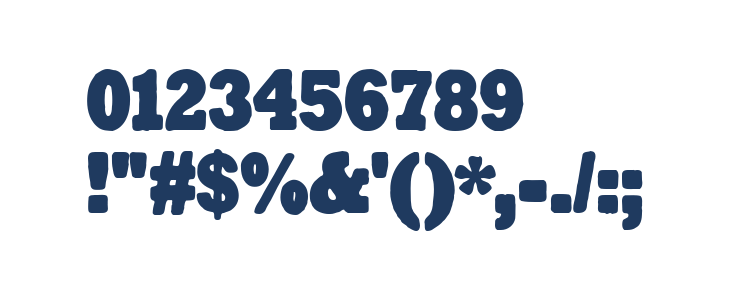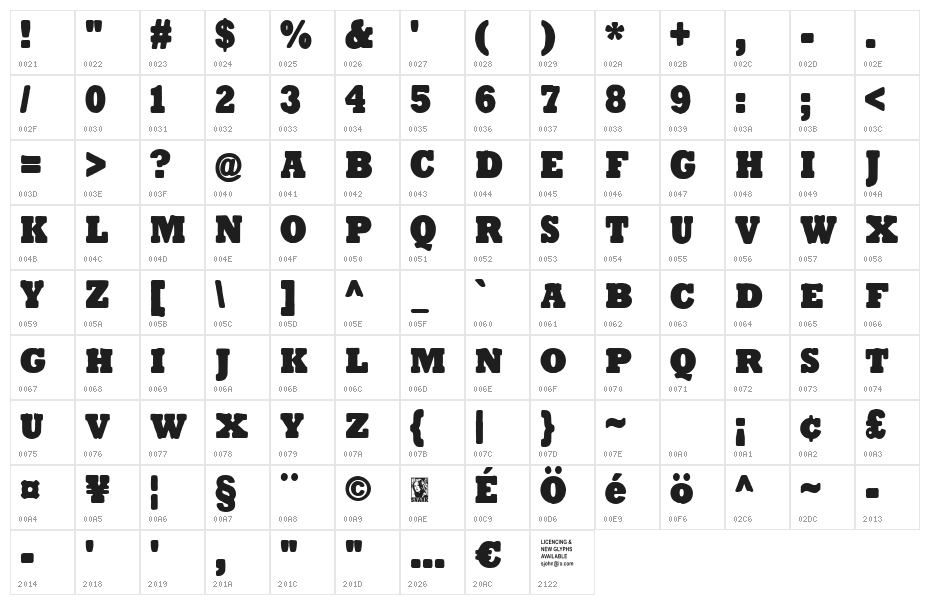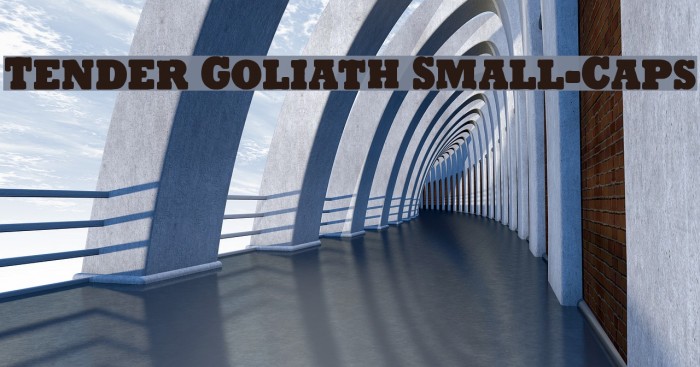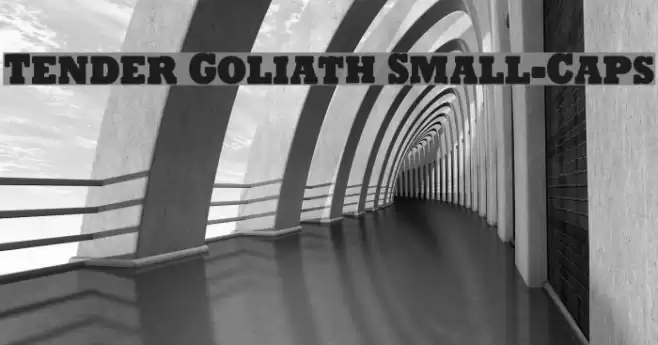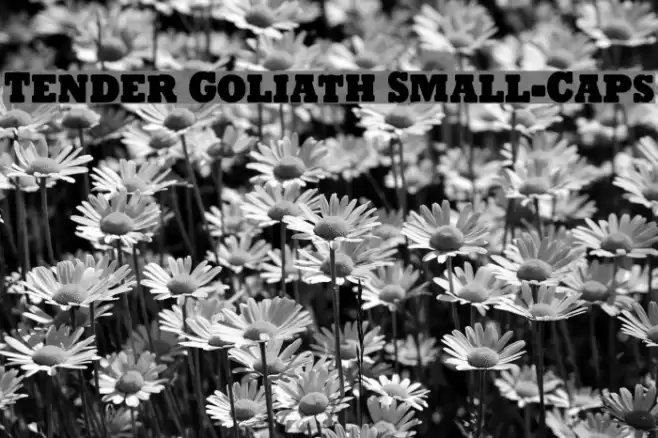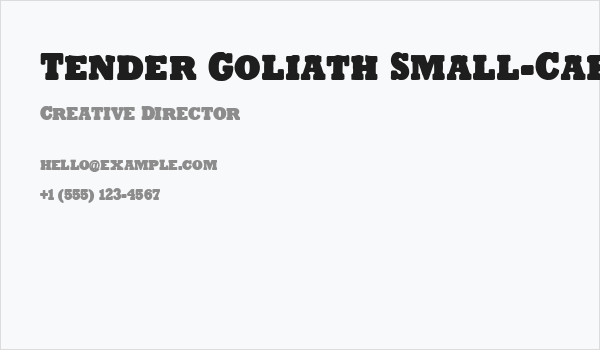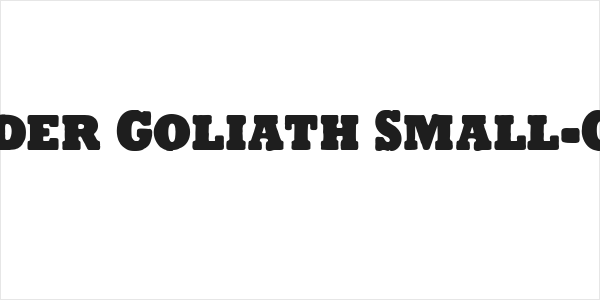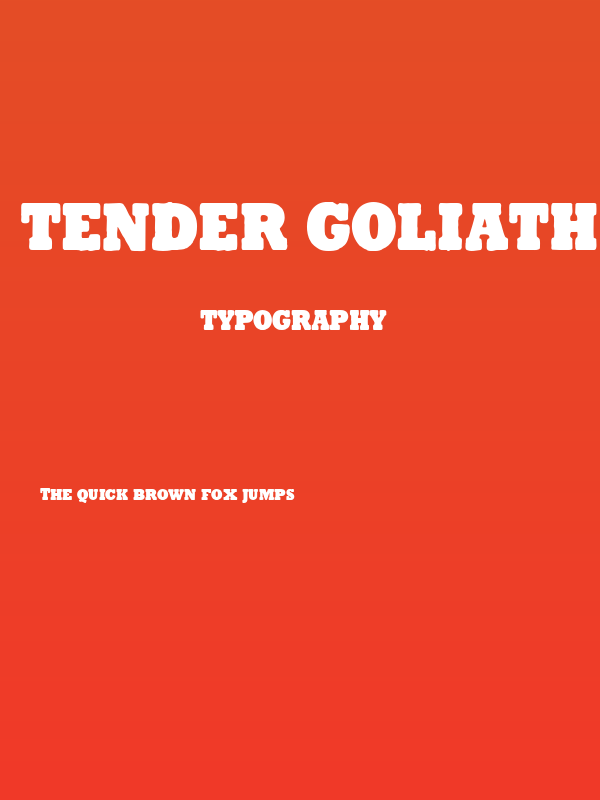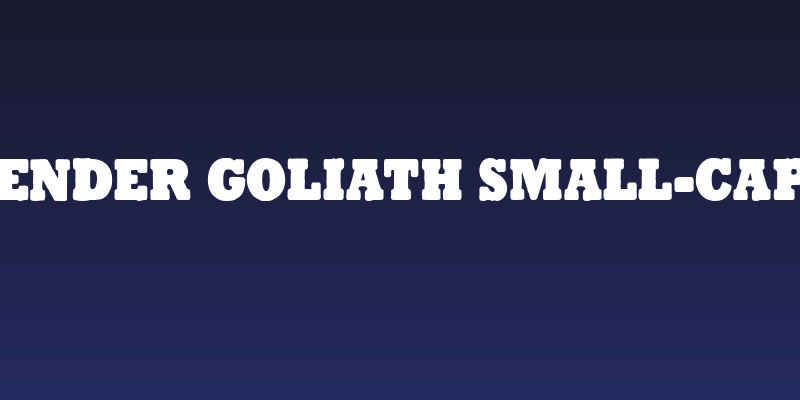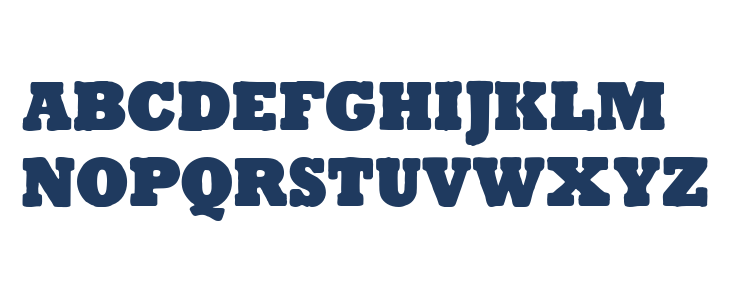
Tender Goliath Small-Caps Font
Tender Goliath Small-Caps Description
This font features a bold and robust design with thick, heavy strokes that give it a strong presence. The characters are uniformly wide, creating a sense of stability and strength. The uppercase letters are particularly prominent, with a blocky appearance that makes them stand out. The numbers and special characters maintain the same boldness, ensuring consistency across all elements. The font's style is reminiscent of vintage poster typefaces, making it ideal for projects that require a bold and impactful visual statement.
| Proposed Projects | Ideal for posters, headlines, branding, and any design requiring a bold, impactful typeface. |